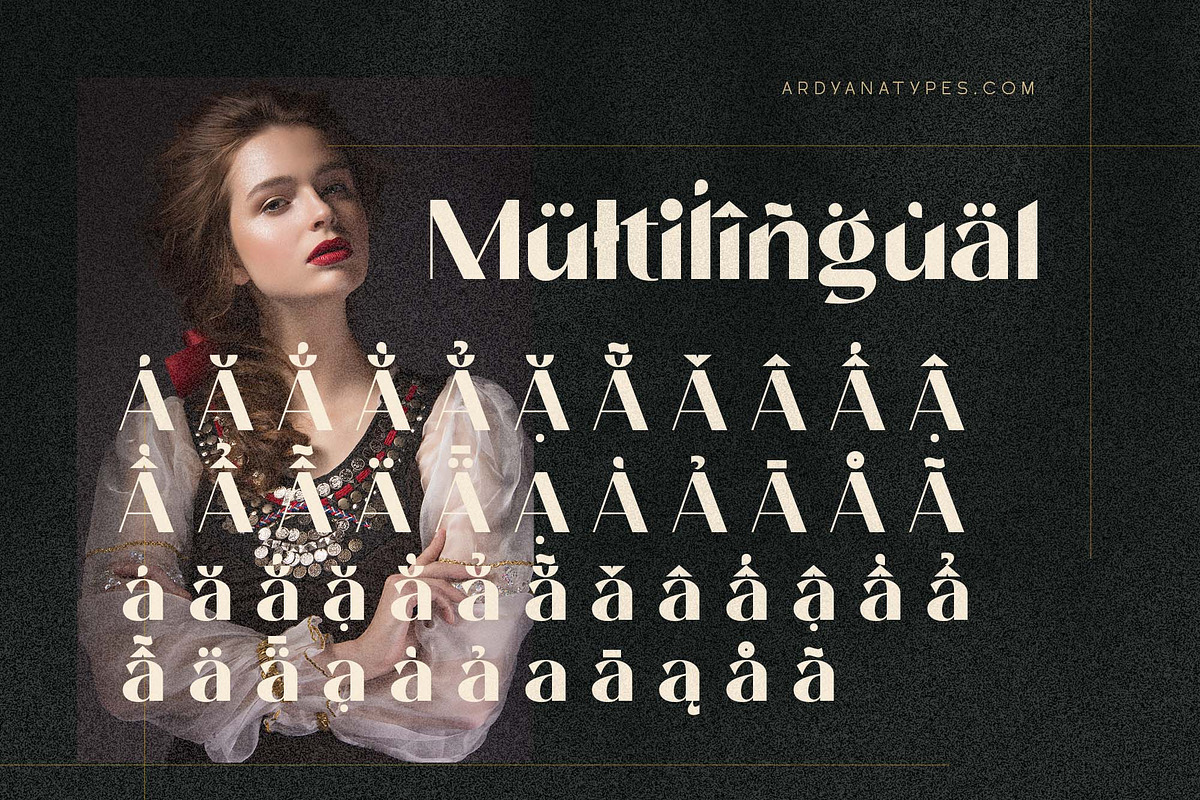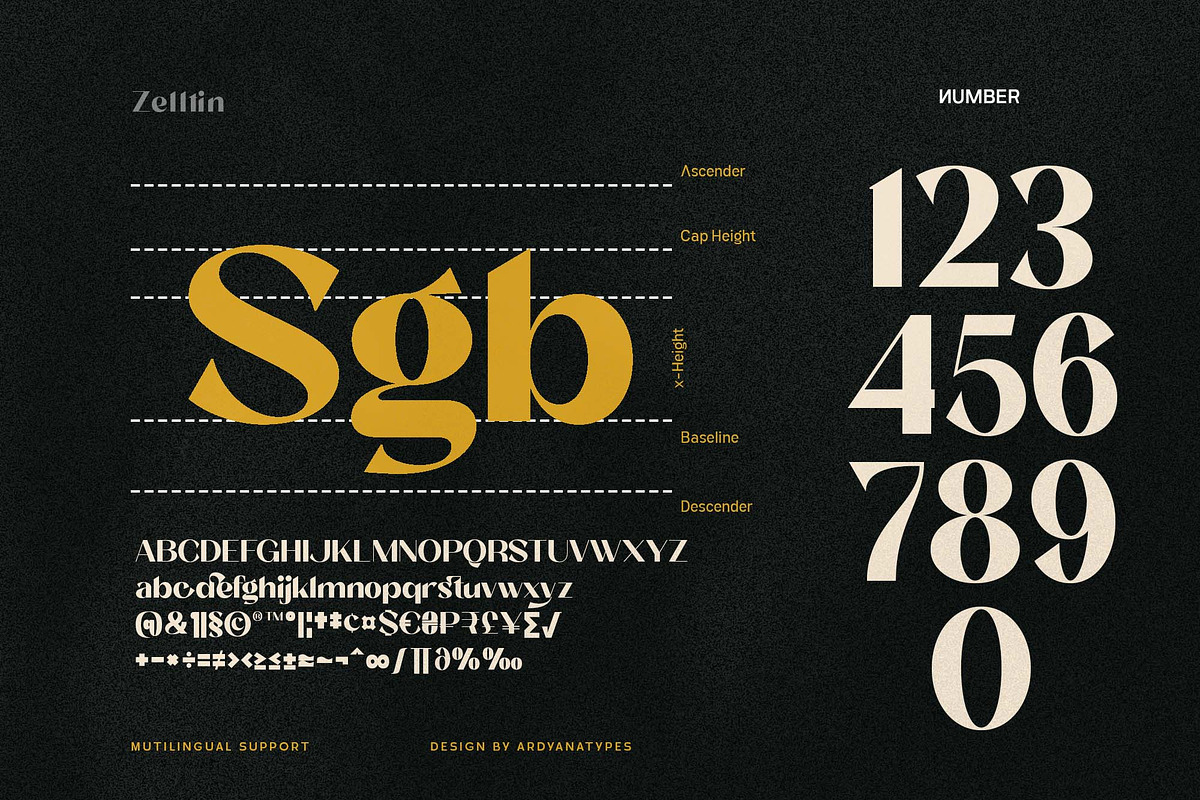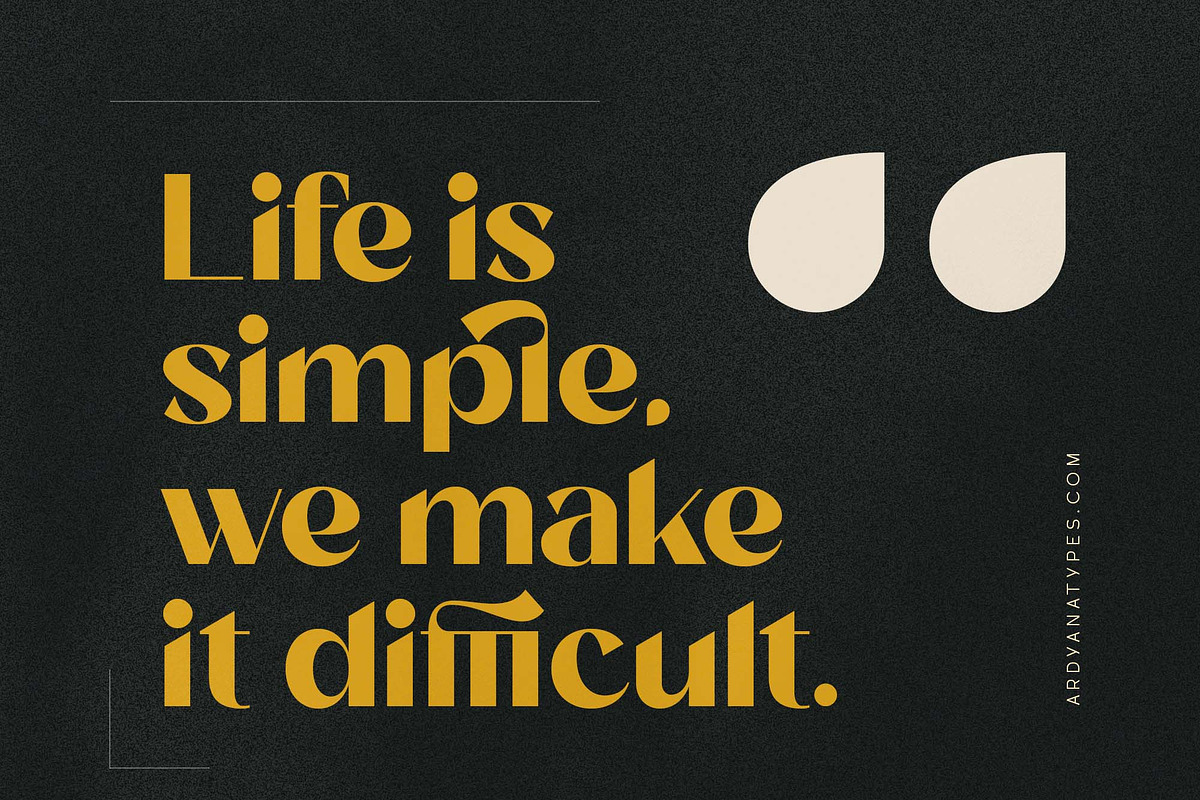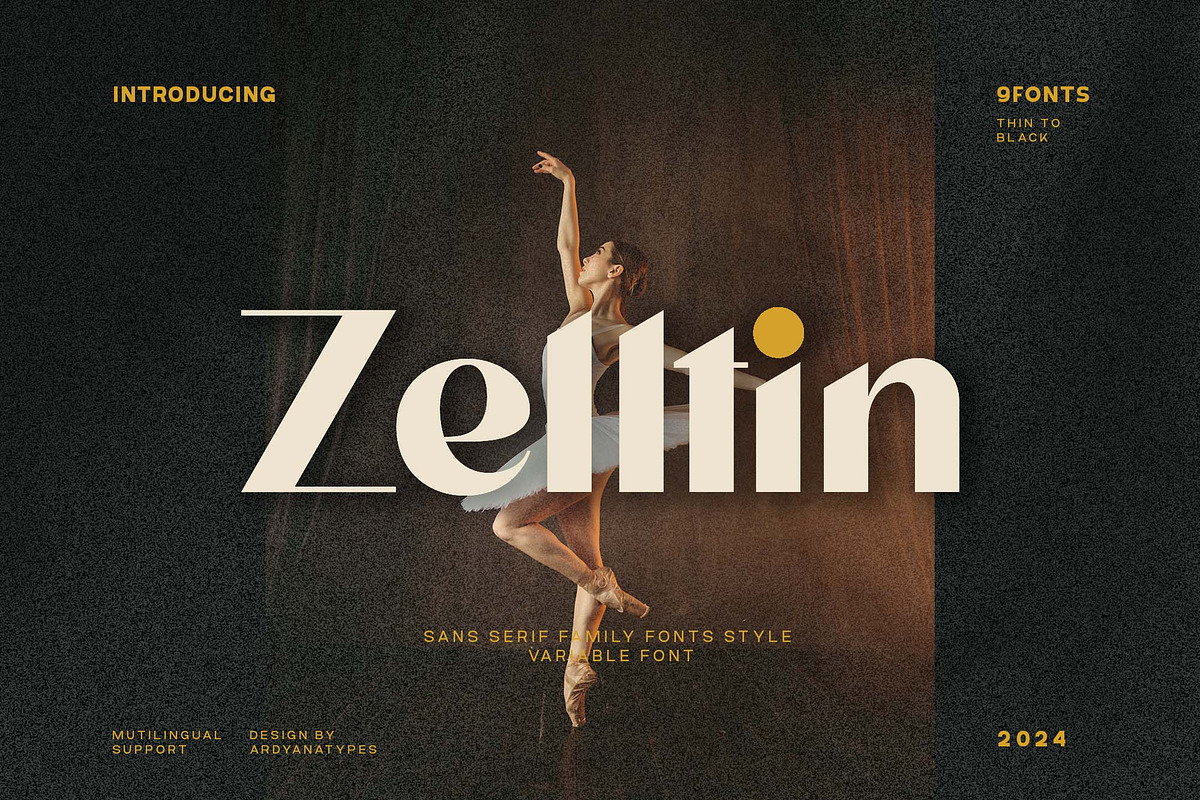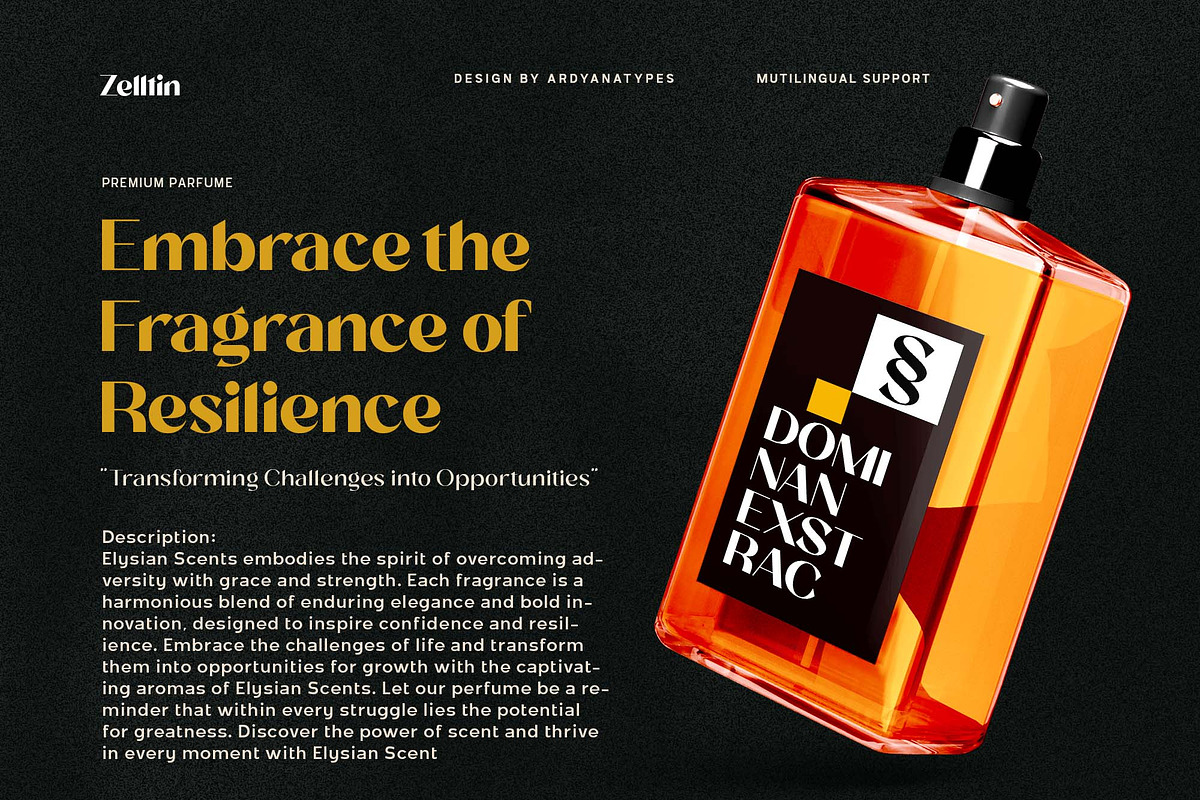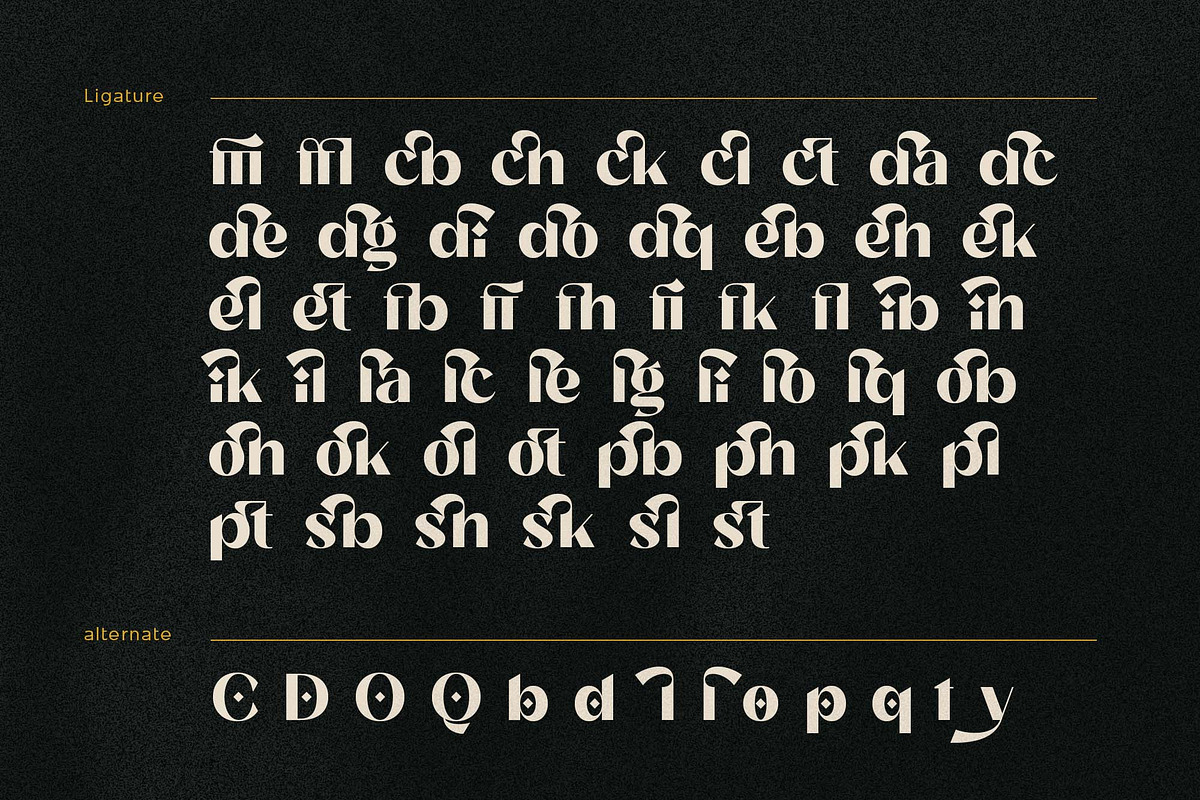
Zelltin
Meet Zelltin, a sans serif font that blends classic elegance with modern functionality. Specially designed for professional graphic designers, creative agencies, and the film industry, Zelltin is the ultimate choice for creating stunning and impactful designs.
With 9 font styles ranging from Thin to Black, along with advanced variable font features, Zelltin offers incredible flexibility for various typographic projects. Whether you're working on branding and logo design, editorial layouts, movie titles, or advertisement posters, this font ensures your work stands out with elegance and professionalism.
- Diverse Font Styles: From Thin to Black, Zelltin suits various design styles.
- Variable Font Technology: Easily adjust font weight and width to match your creative needs.
- Multilingual Support: Perfect for a global audience with full compatibility across languages. Ideal Applications:
- Branding and logo design
- Editorial layouts
- Posters and ad campaigns -Movie titles and cinematic projects
Whether you're looking for an elegant sans serif font or a versatile modern typeface, Zelltin is the perfect solution for your professional typography needs.
A – Z Character Set
a – z Characters set
Numerals & Punctuations
Ligatures & Alternates